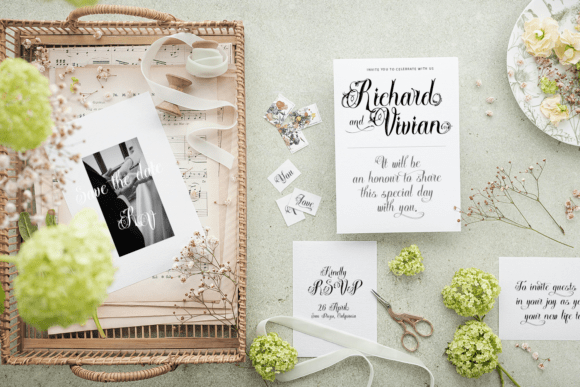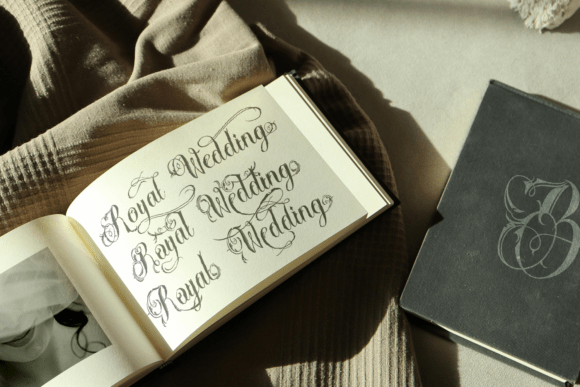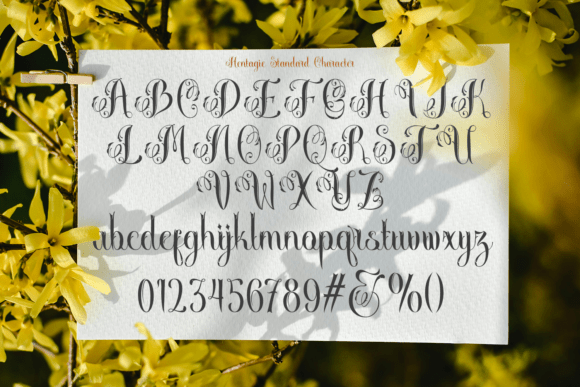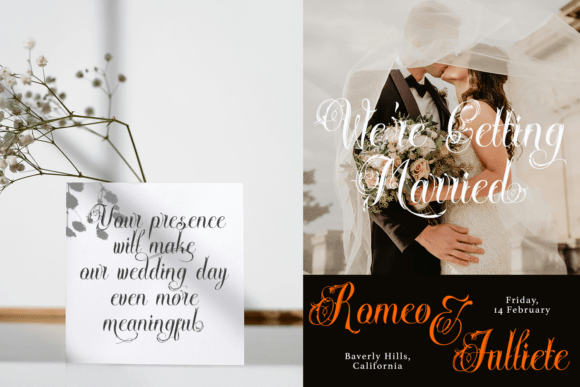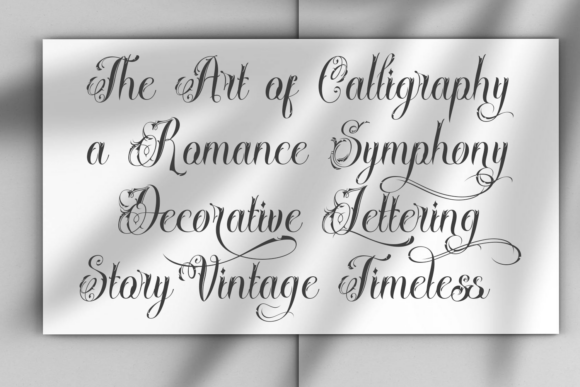
A Brush with the Past: Discovering the Timeless Elegance of the Hentagie Font
Imagine you’re flipping through an old, leather-bound book, the worn pages crackling with every turn. The scent of aged paper wafts up, transporting you to a bygone era of elegance and refinement. You come across a beautifully crafted invitation, the script dancing across the page with intricate flourishes and a subtle slant that hints at the masterful hand of a skilled penman. This is the magic of the Hentagie Font, a typeface that captures the essence of Victorian-era calligraphy and transports you to a world of romance and nostalgia.
For designers seeking to add a touch of historical grandeur to their projects, the Hentagie Font is a valuable treasure. Its ornate botanical flourishes and dramatic slant make it the perfect choice for wedding stationery, vintage-inspired branding, and any project that demands a sense of classic sophistication.
Hentagie Font Key Features
- Font Family: Hentagie is a unique, hand-drawn font designed for artistic and creative purposes. It includes multiple styles, such as regular, bold, italic, and bold italic.
- Unique Characteristics: The font’s distinctive, hand-drawn style and varied letterforms make it ideal for creating eye-catching headlines, titles, and other display text.
- Font Style: Hentagie features a mix of modern and vintage elements, giving it a unique, eclectic feel that sets it apart from other fonts.
Hentagie Font Review
I recently had the chance to work with the Hentagie font, and I have to say, it’s a mixed bag. Here are my thoughts:
- Unique aesthetic: Hentagie has a distinctive, quirky feel that sets it apart from more traditional fonts.
- Wide range of uses: It’s great for headings, titles, and even body text, making it a versatile choice.
- Good legibility: Despite its unusual design, Hentagie is surprisingly easy to read, especially in larger sizes.
- Overuse of ornaments: The font’s decorative elements can be overwhelming if overused, making it look cluttered and busy.
- Limited font sizes: At smaller font sizes, Hentagie’s intricate details can become difficult to read and may require additional styling.
Overall, I’d give Hentagie a solid 3.5 out of 5 stars. While it’s a unique and effective font in the right situations, its limitations make it less suitable for everyday use. If you’re looking for a bold, eye-catching font to add some personality to your design, Hentagie might be worth considering – just be mindful of its potential pitfalls.
The Hentagie font is ideal for creative projects, such as:
– Branding and logo design
– Advertising and marketing materials
– Editorial and publishing work
– Digital art and graphic design
Tips for Getting the Most Out of Hentagie
To get the most out of the Hentagie font, consider the following tips:
– Use it in combination with bold or italic styles for emphasis.
– Experiment with different font sizes and colors to create visual interest.
– Use the font in creative ways, such as in headings or subheadings.
– Combine the font with other fonts to create a unique and visually appealing design.
Alternatives to Hentagie Font
Playfair Display is an elegant and luxurious script font perfect for titles and headings. It features intricate details and flourishes, making it ideal for high-end designs, fashion, and luxury brands. When to use: Titles, headings, and any design that requires sophistication and elegance. Compared to Hentagie Font, Playfair Display has a more refined and sophisticated look, while Hentagie Font has a more playful and whimsical feel.